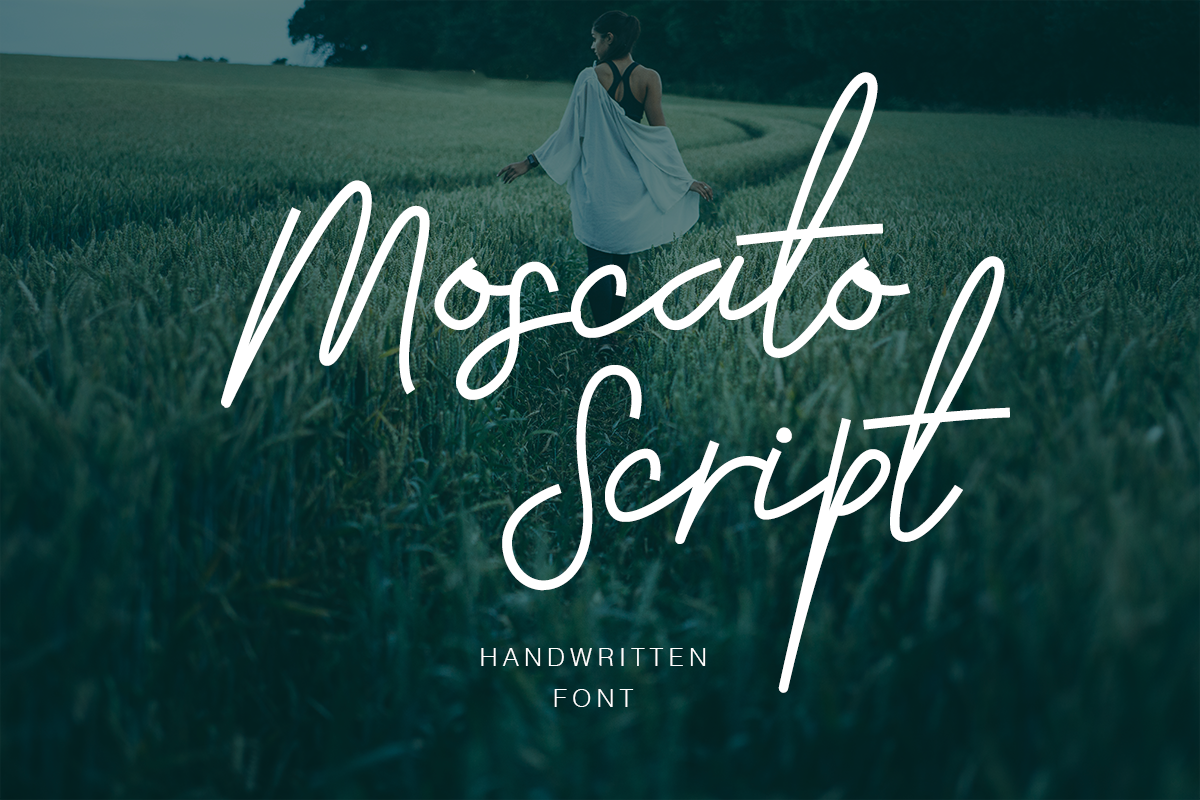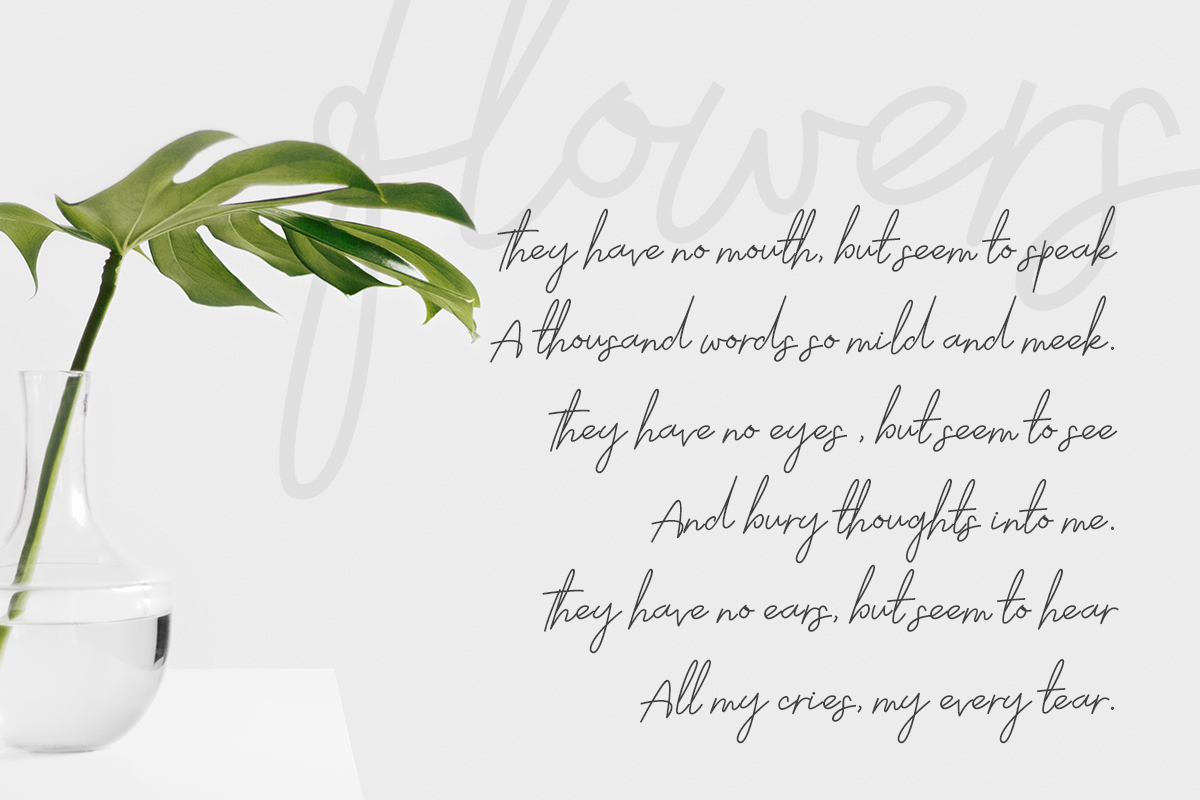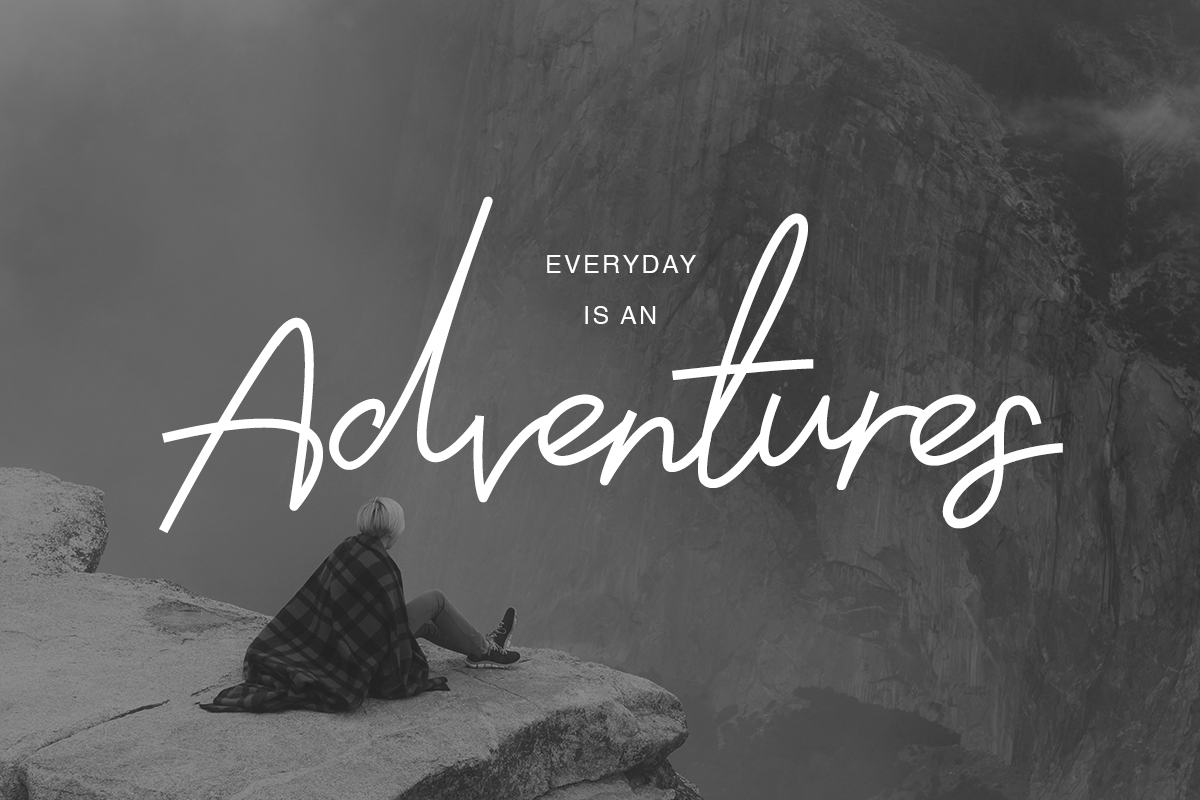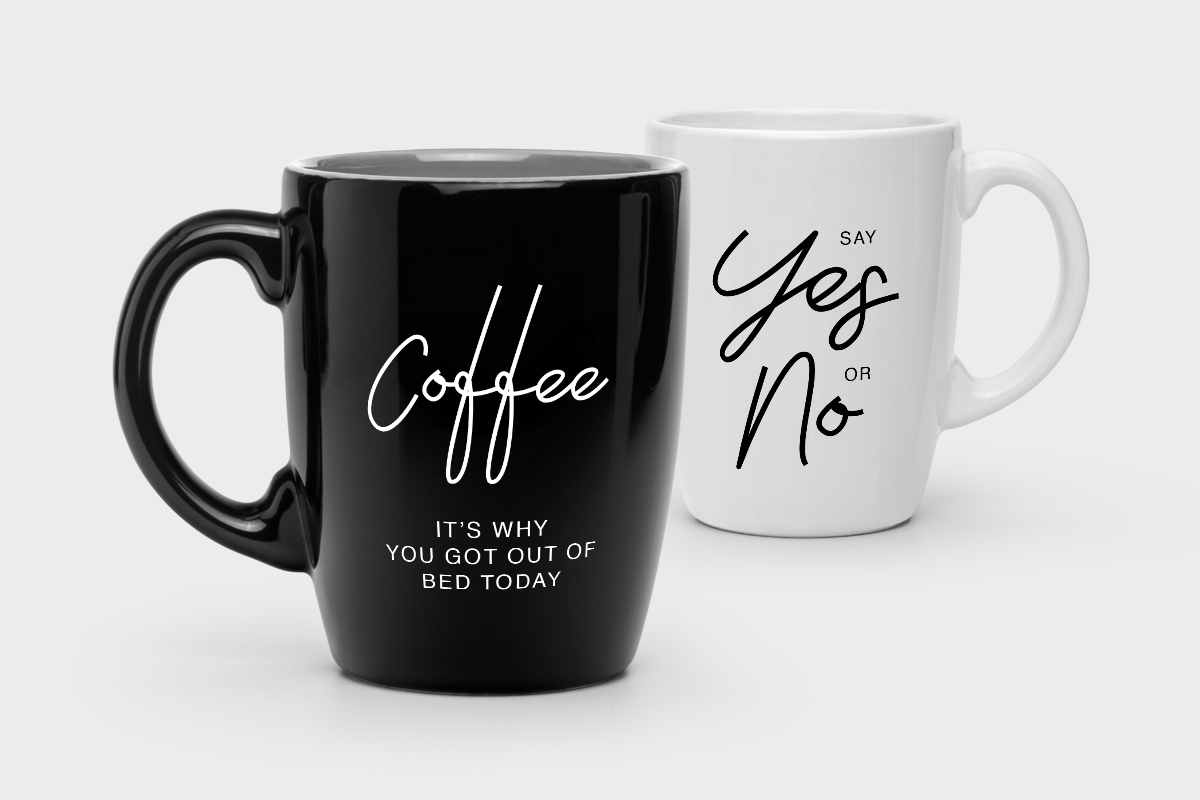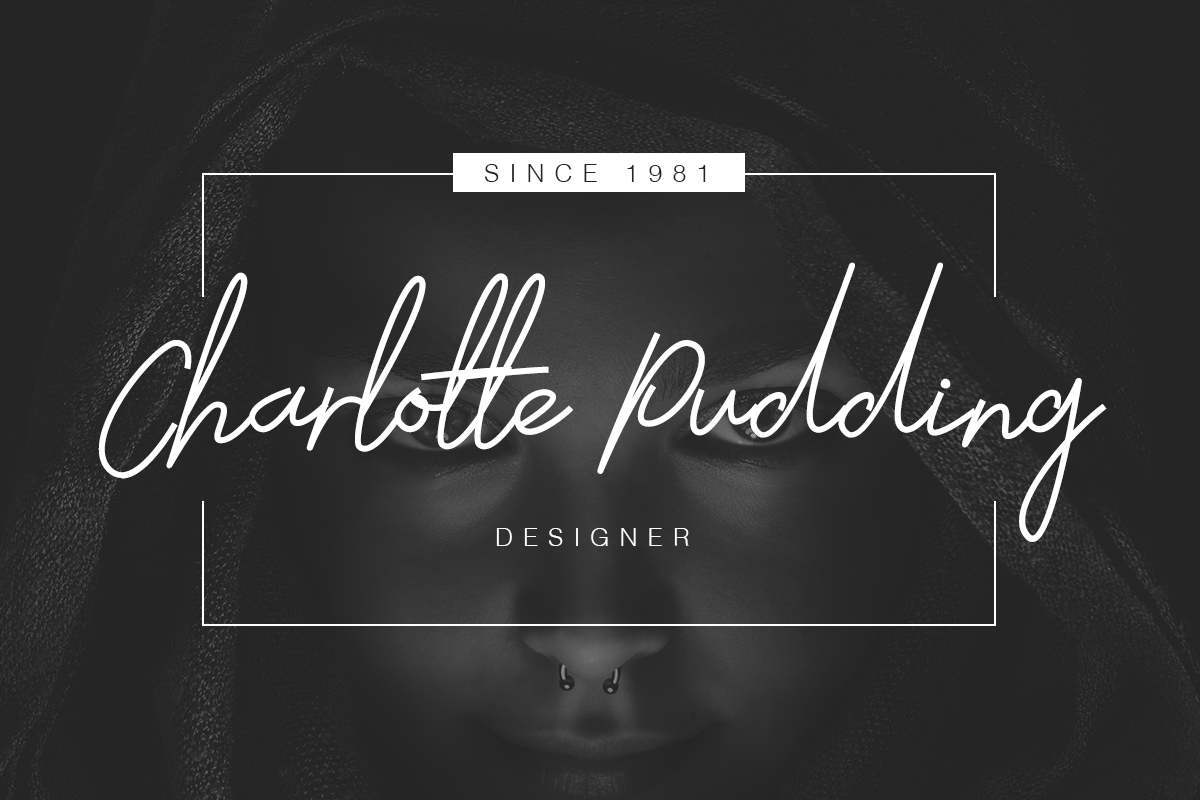
Moscato Font
About Moscato Font
Moscato is a sharp, dapper handwritten font. This is a personal, unique script filled with angular designations and appeal.